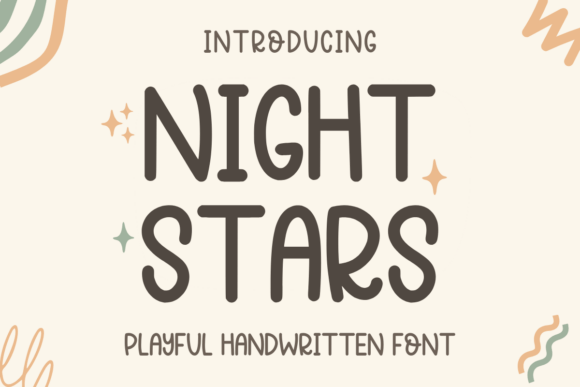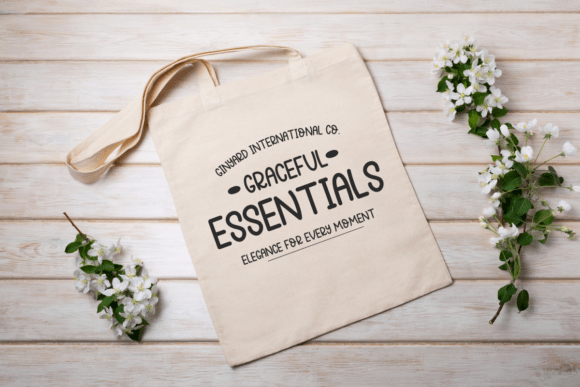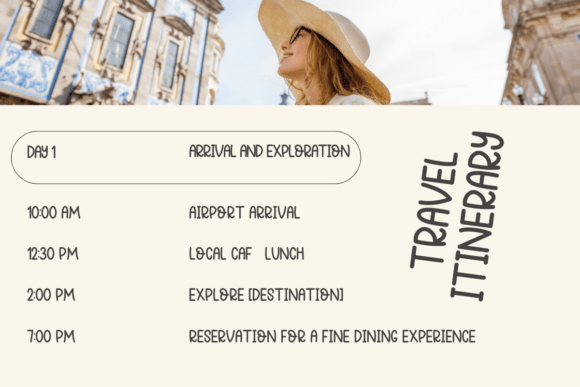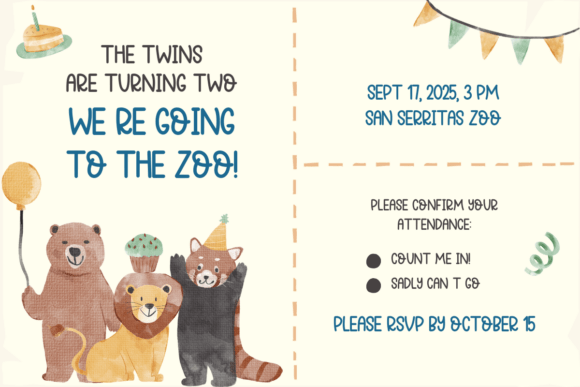
Night Stars Font: A Cute Handwritten Font for Cricut & DIY Projects
About the Night Stars Font
Introducing the Night Stars Font, a beautifully crafted typeface designed to elevate your creative projects. Night Stars is a fun and playful handwritten font that’s perfect for crafts, planners, KDP, stickers, greeting cards, and more. With its cute and friendly style, it works great for Cricut, sublimation, and creative DIY projects. Ideal for crafters, designers, and makers!
Its friendly, informal style makes it ideal for branding projects targeting a young, playful audience, particularly in children’s products or creative businesses. Consider it for headlines, short taglines, and packaging elements where a hand-drawn feel adds personality. However, avoid using Night Stars for large bodies of text or UI elements; its playful nature can become distracting and difficult to read in extended use.
Pair Night Stars with a clean sans-serif like Open Sans for a balanced contrast, or a playful, rounded geometric sans-serif such as Bebas Neue for a cohesive, energetic feel. A simple serif like Lora could add a touch of sophistication if a more refined aesthetic is desired.
Night Stars projects a cheerful, approachable personality, best suited for brands that value authenticity and handmade aesthetics. Avoid using it in contexts requiring high readability or a serious, professional tone.
Night Stars Font Usage Examples
Night Stars Font Example